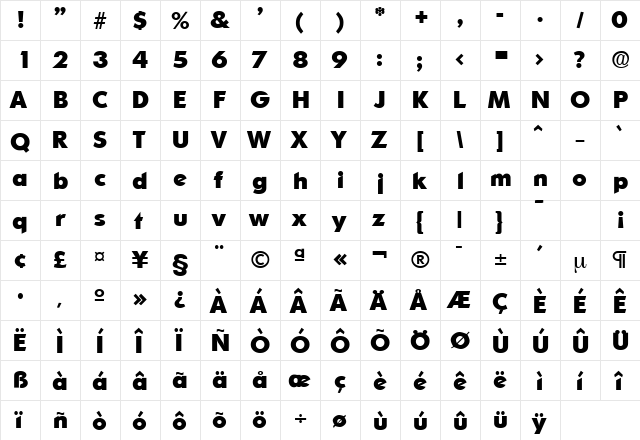
Ornitons-Serial-ExtraBold Regular
Design Context for Ornitons-Serial-ExtraBold Typeface
Ornitons-Serial-ExtraBold is a composed and adaptable typeface that performs quietly and consistently across a wide range of design contexts. The heavy weight commands attention and anchors typographic hierarchies.